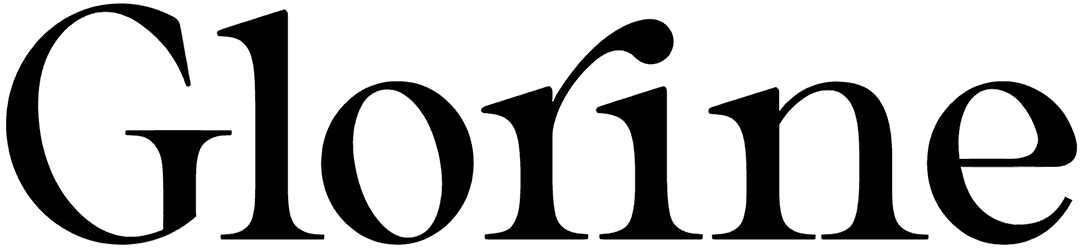
Glorine Font
Glorine is a serif font with a classic but unique face. This group of fonts never gets old, and they always have their fans due to their ability to adapt to different contexts. You can cover your creative designs like business cards, magazines, product logos, or the like with Glorine, and it will surely allow you to show them off brilliantly.